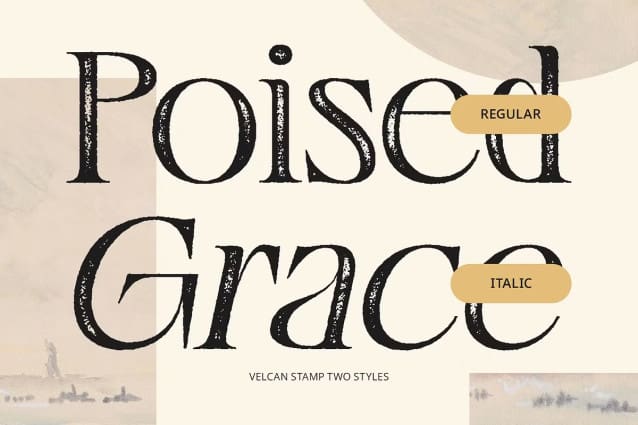
Velcan Stamp Font
Velcan Stamp Font is a serif font that seamlessly blends modern classic style with a textured, stamped effect. Its refined letterforms exude timeless elegance and sophistication, while the unique stamp texture introduces depth and a handcrafted quality.
A Blend of Elegance and Character This font offers a perfect balance of traditional luxury and artistic charm. The serif design maintains a polished, formal aesthetic, making it suitable for high-end projects, while the stamped texture adds a unique and vintage-inspired touch, perfect for creating a memorable impression.
Perfect for Luxury and Vintage-Inspired Designs Velcan Stamp is ideal for luxury branding, formal invitations, editorial layouts, and other projects that require a timeless yet distinctive style. The stamped effect gives it a bespoke, crafted feel, making it perfect for designs that seek to combine sophistication with a handcrafted edge.
Versatile and Distinctive From high-end logos to elegant packaging and formal design projects, Velcan Stamp brings both class and individuality to your designs. Its rich texture and classic serif forms create a unique visual experience, ideal for blending tradition with modern creativity.